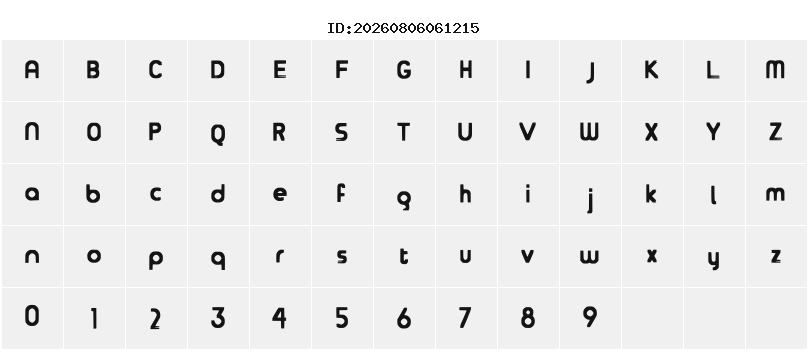
• Font Name: Over Sea
• Full Font Name: Over Sea
• Version: Version 1.00 February 14, 2013, initial release
About Over Sea.ttf
Over Sea.ttf is a modern, elegant sans-serif font designed for ultimate readability and visual harmony. Perfect for branding, headlines, web design, and print materials.